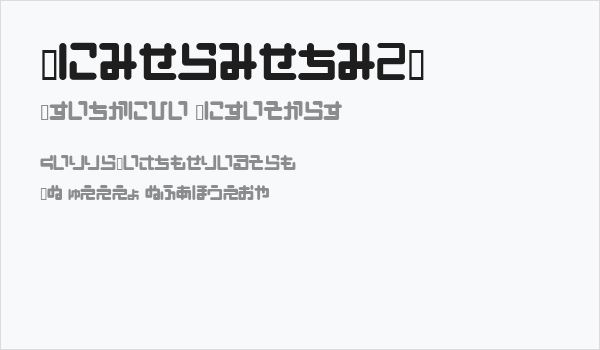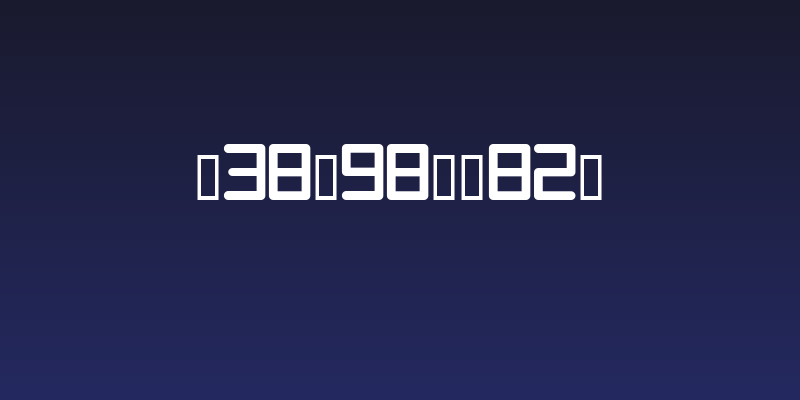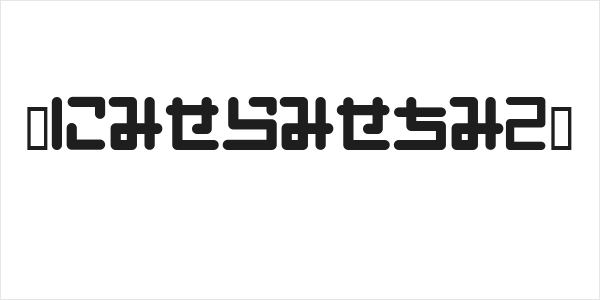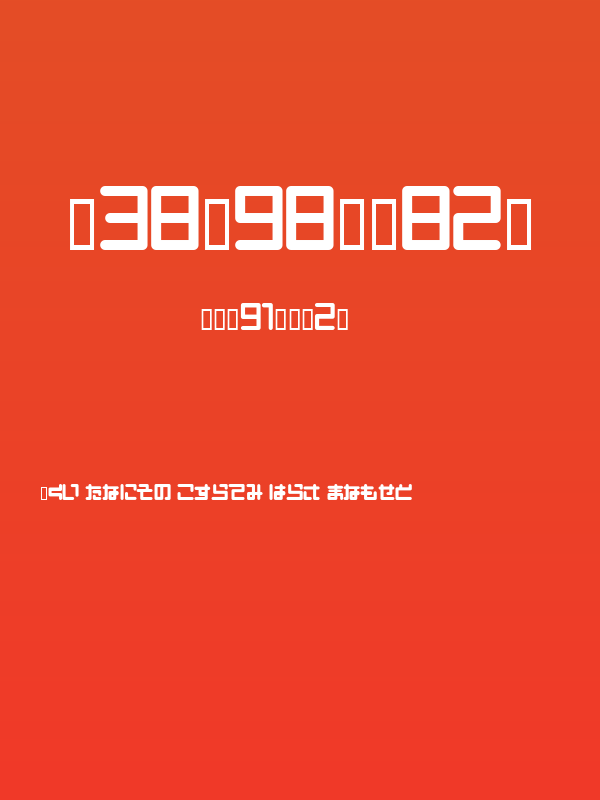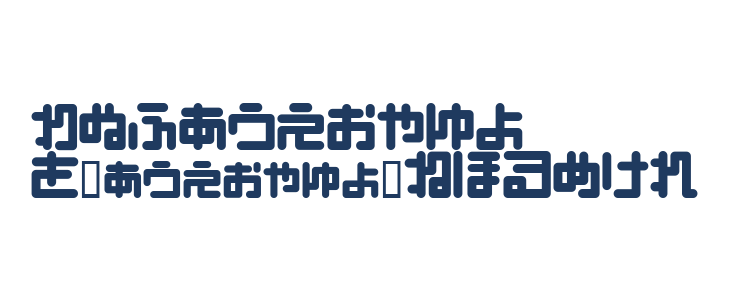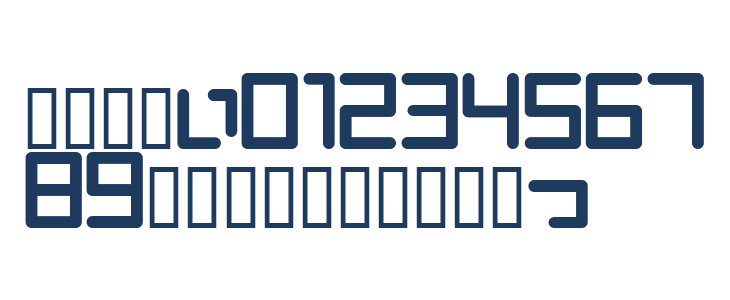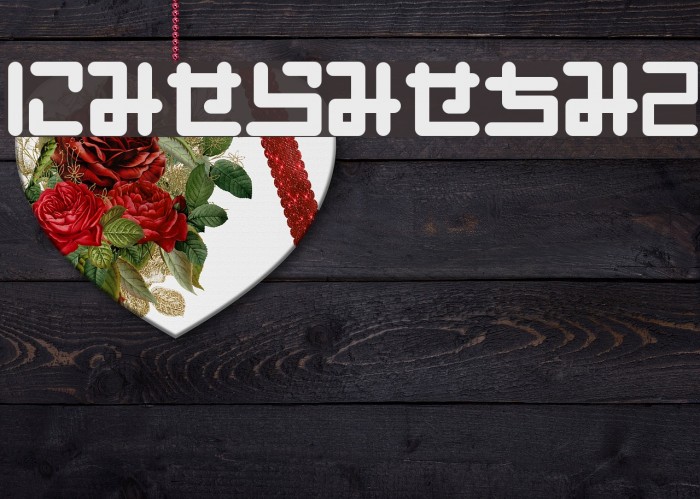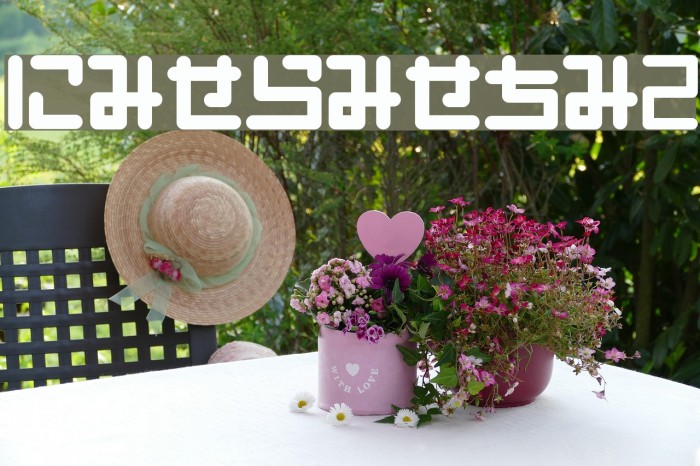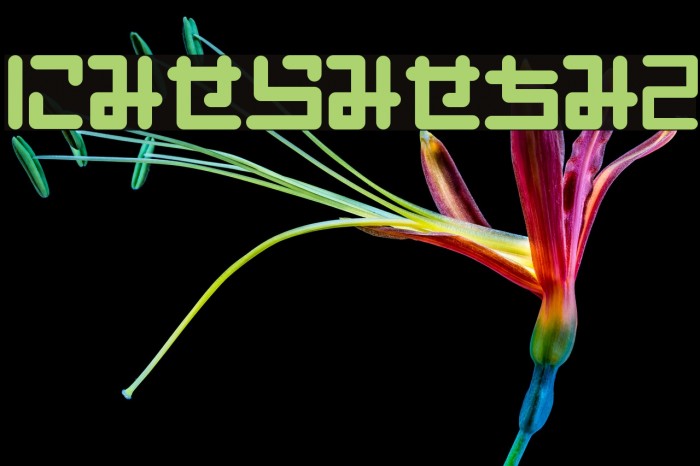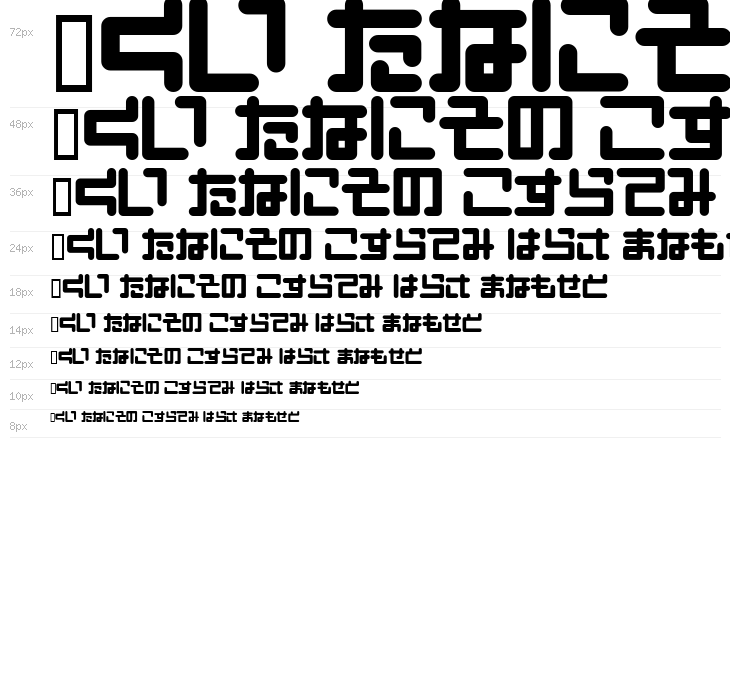
PinponpanHR Font
PinponpanHR Description
This font features a modern, geometric design with a strong emphasis on rounded edges and uniform line thickness. The characters are bold and have a futuristic appearance, making them stand out with their unique style. The numbers and letters are consistent in height and width, providing a cohesive look across all characters. The font's structure is clean and minimalistic, which enhances readability while maintaining a distinct visual appeal. It is suitable for digital displays and can be used in various design projects that require a contemporary and sleek aesthetic.
| Overall Style | Futuristic |
| Use Case | Headlines, Logos, Digital displays |
| Proposed Projects | Ideal for digital displays, tech branding, modern posters, and futuristic design projects. |